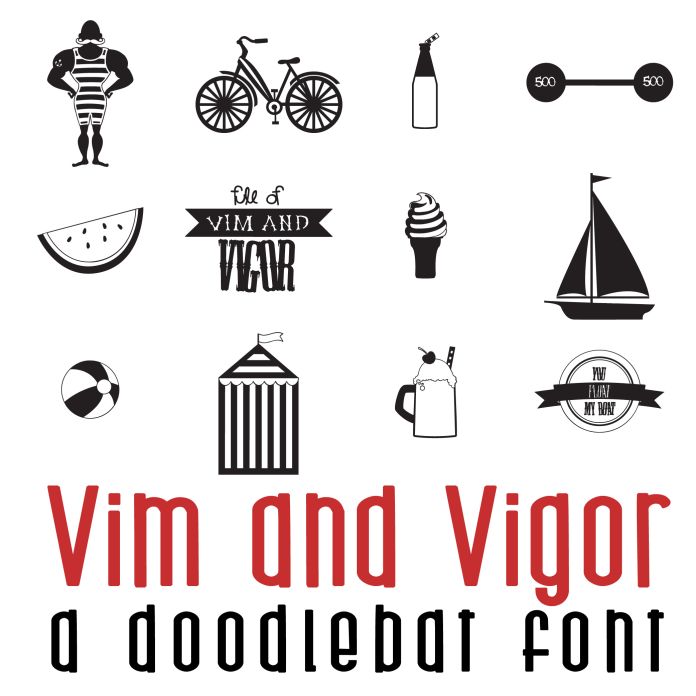
Vim and Vigor Doodlebat Font
This doodlebat font features 26 old-timey beach imagery perfect for cards, crafts, gifts, decor, scrapbook pages, planner stickers, and more!